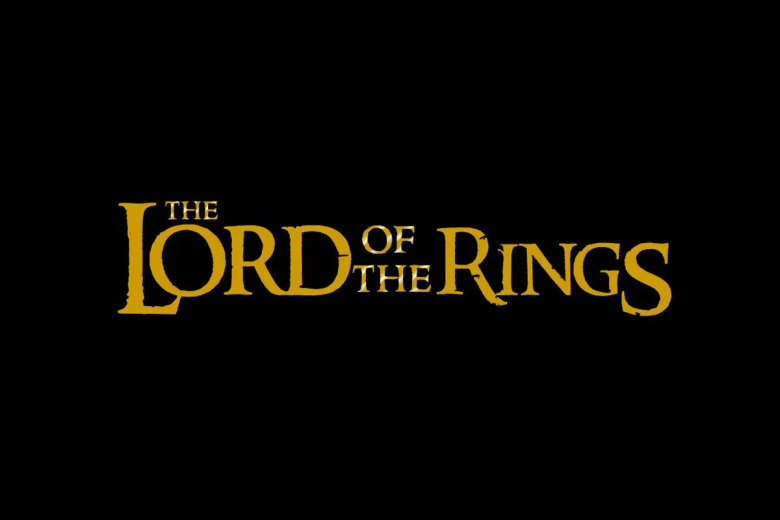
The Lord of the Rings Font
The Lord of the Rings trilogy-action fantasy film series anaxion recount (almost) based on novels of J. R. R. Tolkien. The movies are The Fellowship of the Ring, The Two Towers, and The Return of the King.
It is the sixth longest film series so far behind Harry Potter, James Bond, Star Wars, Pirates of the Caribbean and Shrek. The poster’s movie title text is almost identical to a font called Ringbearer created by Pete Klassen.